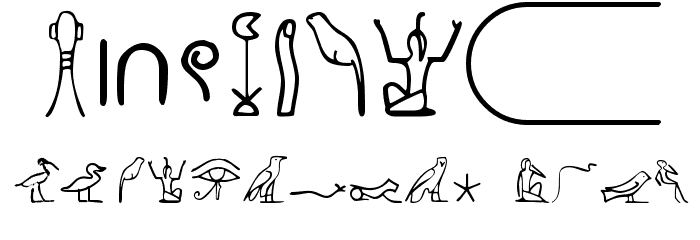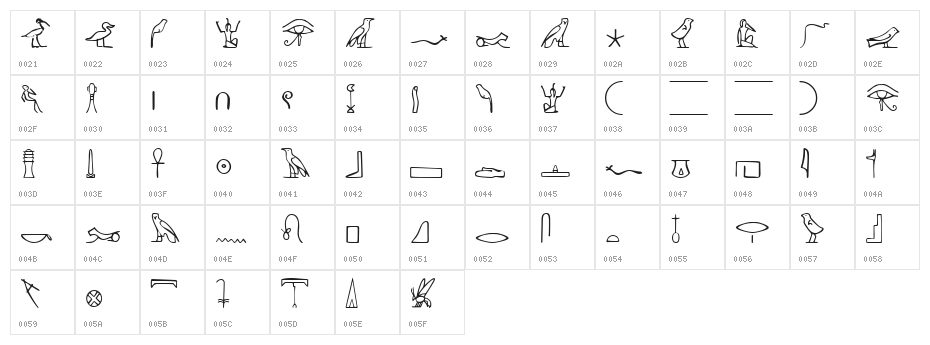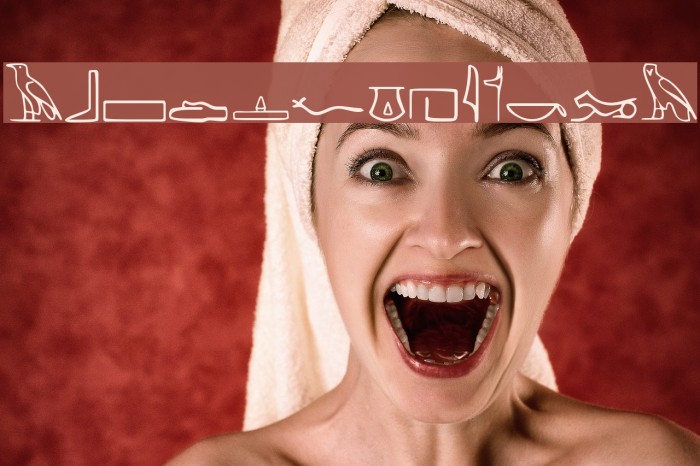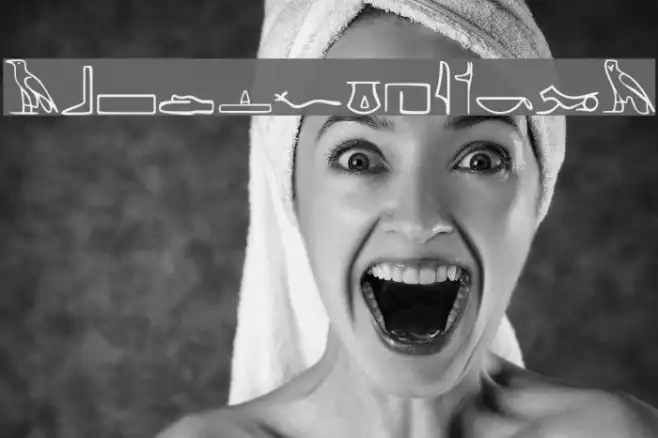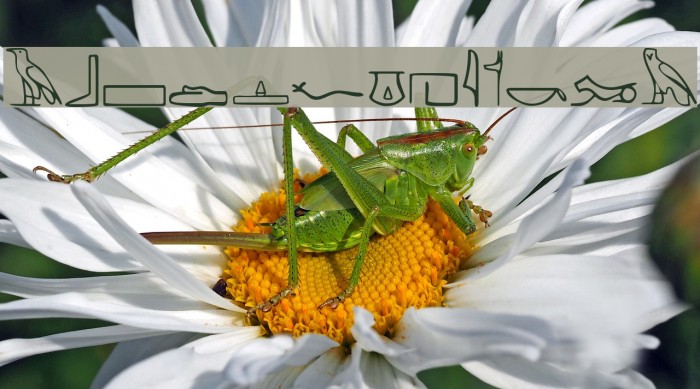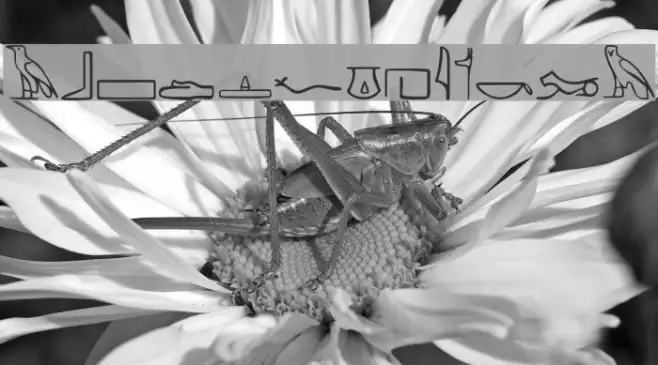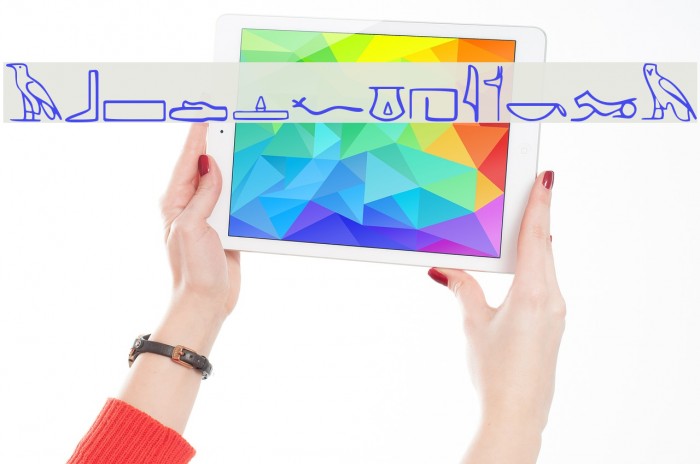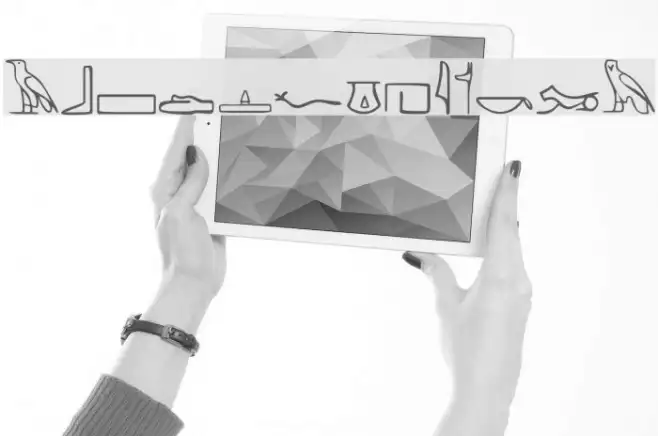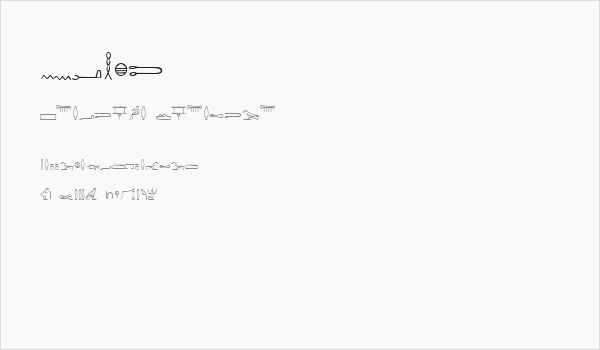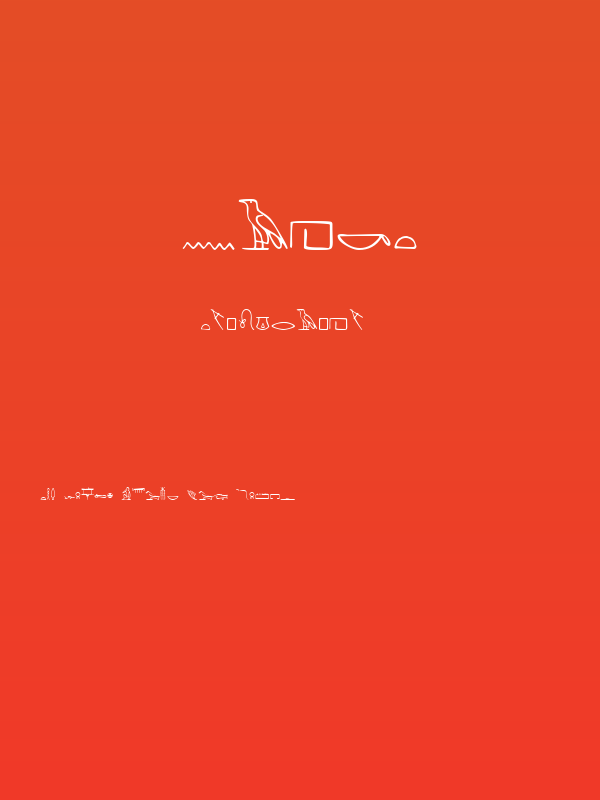
Nahkt Font
Nahkt Description
A decorative typeface inspired by ancient Egyptian hieroglyphs, featuring intricate pictorial symbols and line art representing objects, animals, and people. The glyphs are highly stylized and detailed, mimicking historical writing systems rather than traditional alphabetic characters.
Overall StyleDecorative, Historical
Use CaseThemed headlines, display graphics, educational illustrations.
Proposed ProjectsHistorical displays, museum graphics, educational materials, themed posters, or creative projects requiring an ancient Egyptian aesthetic.